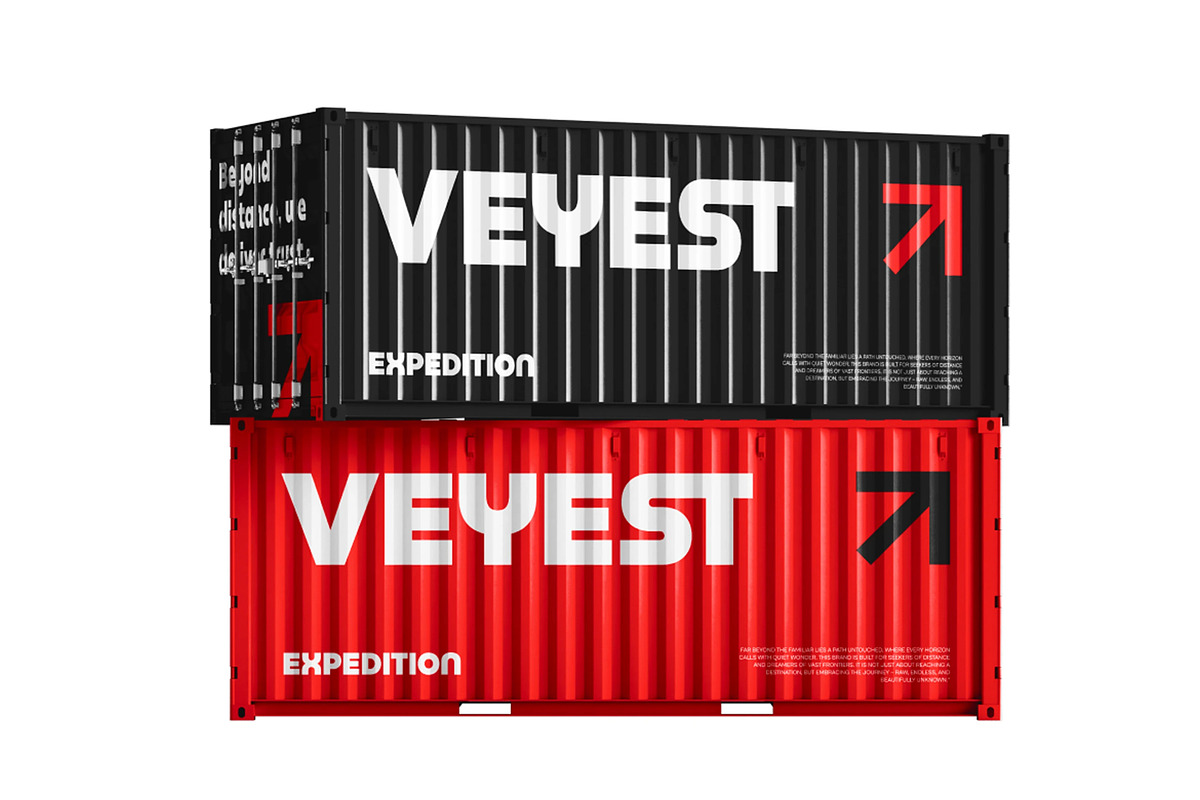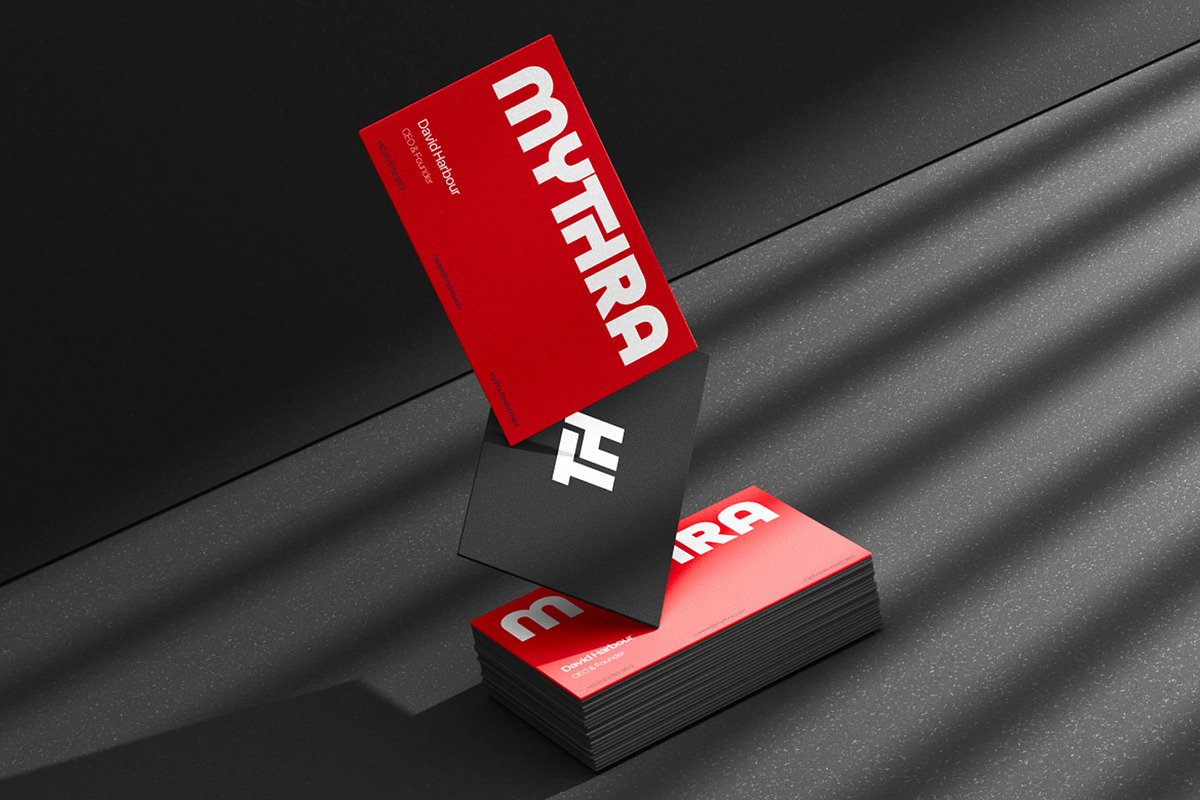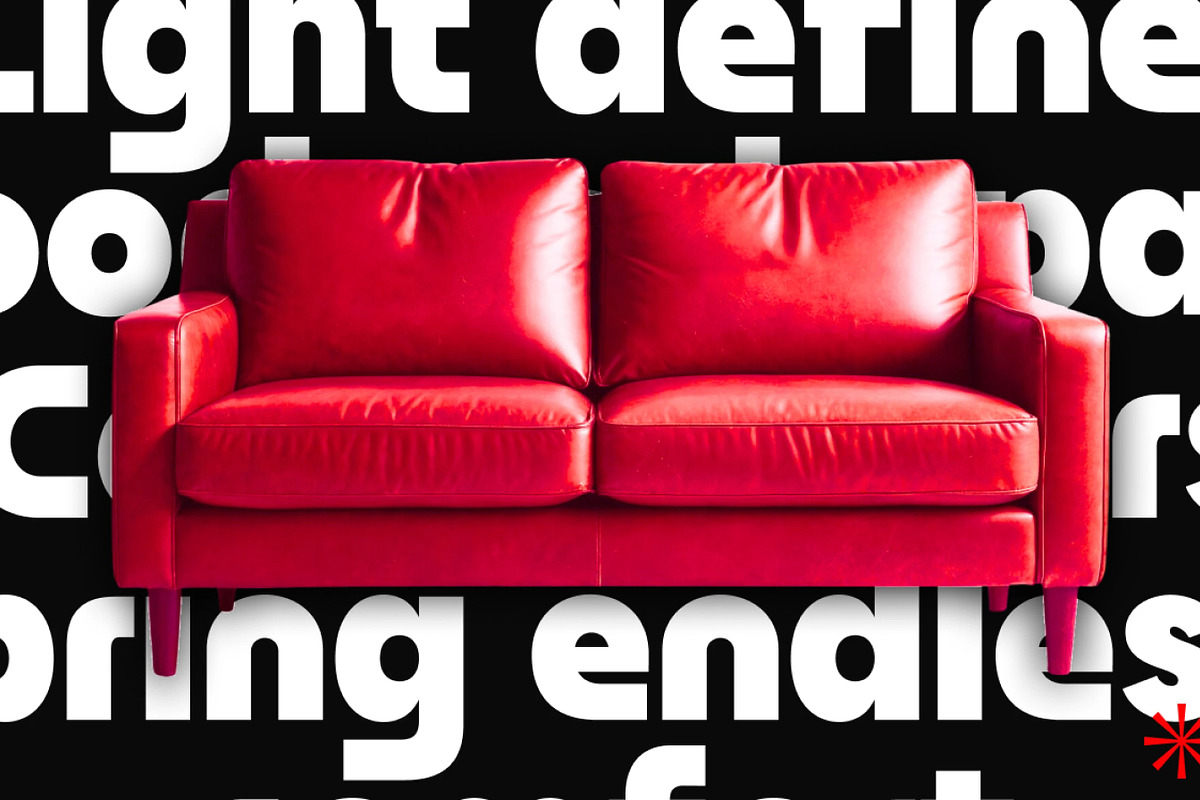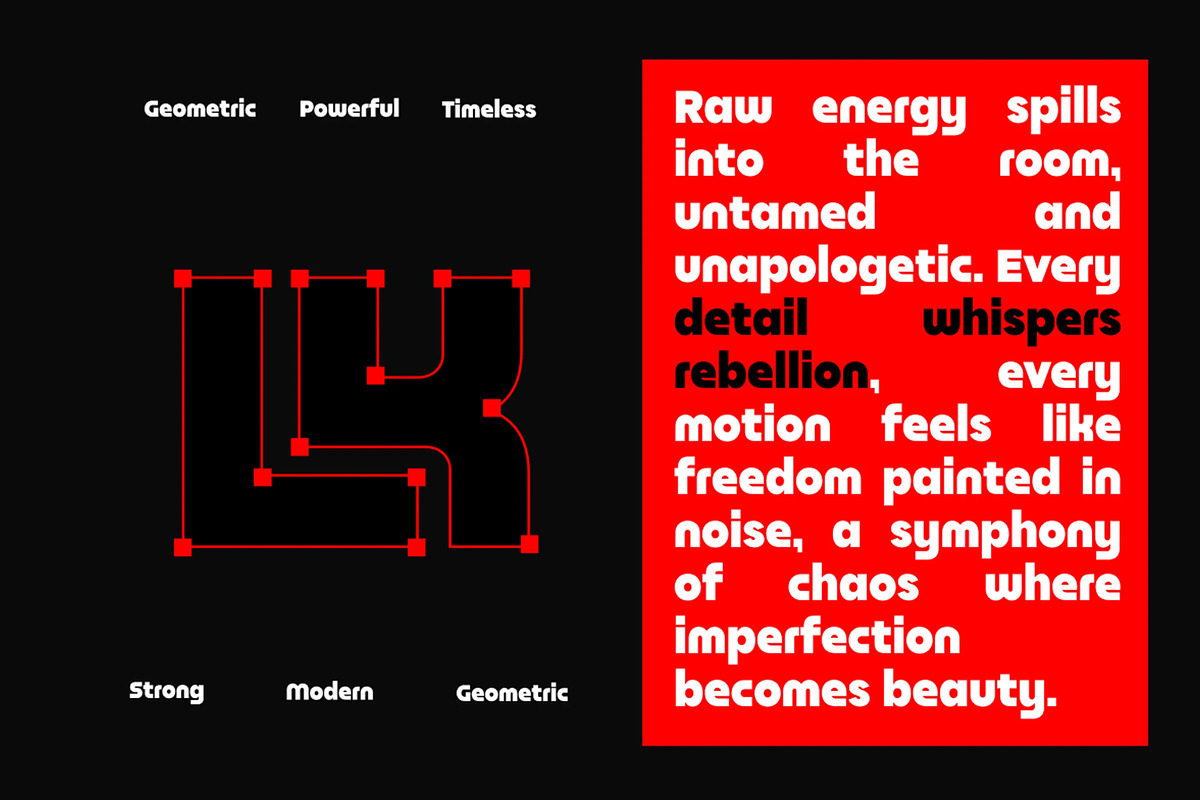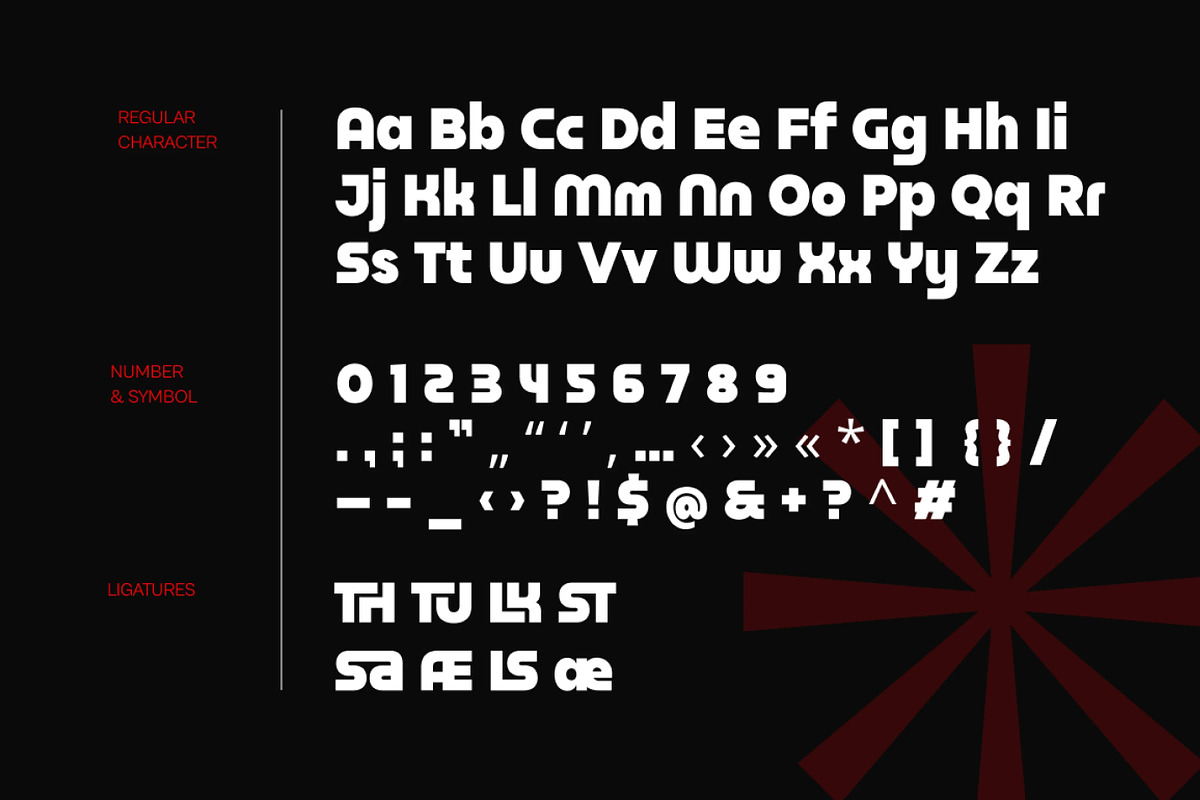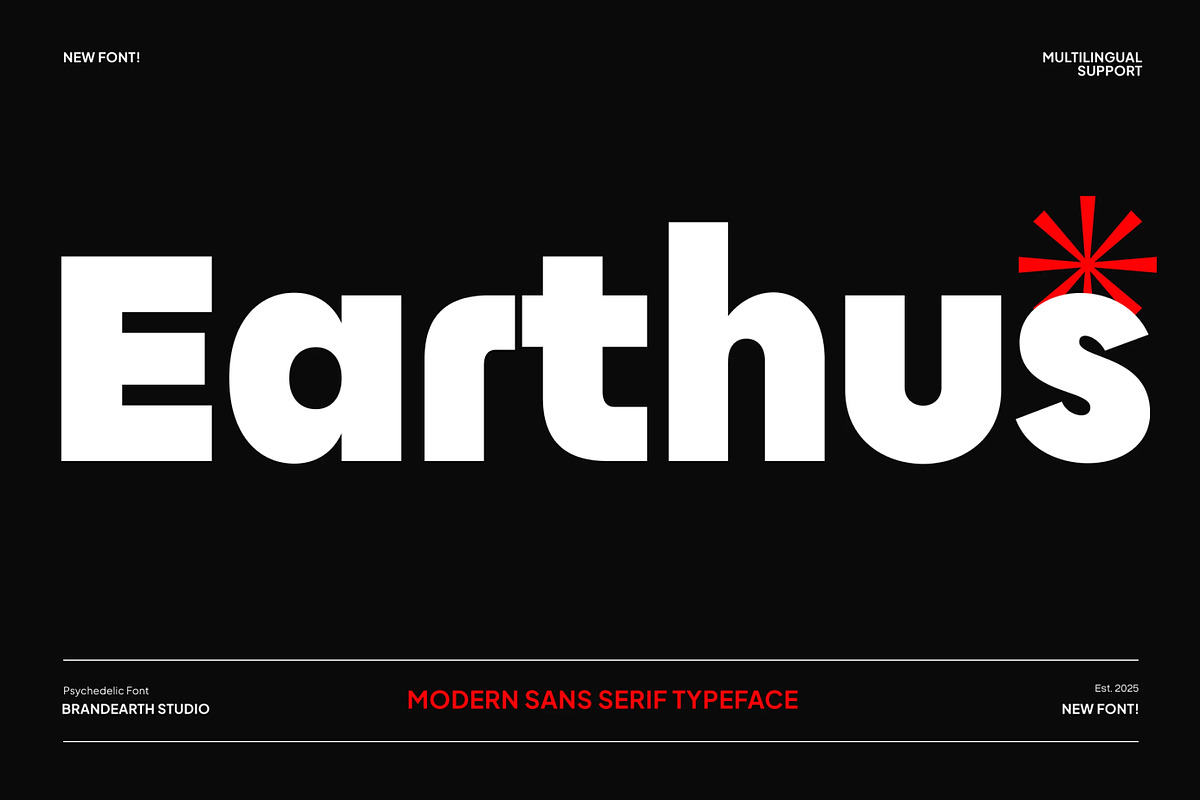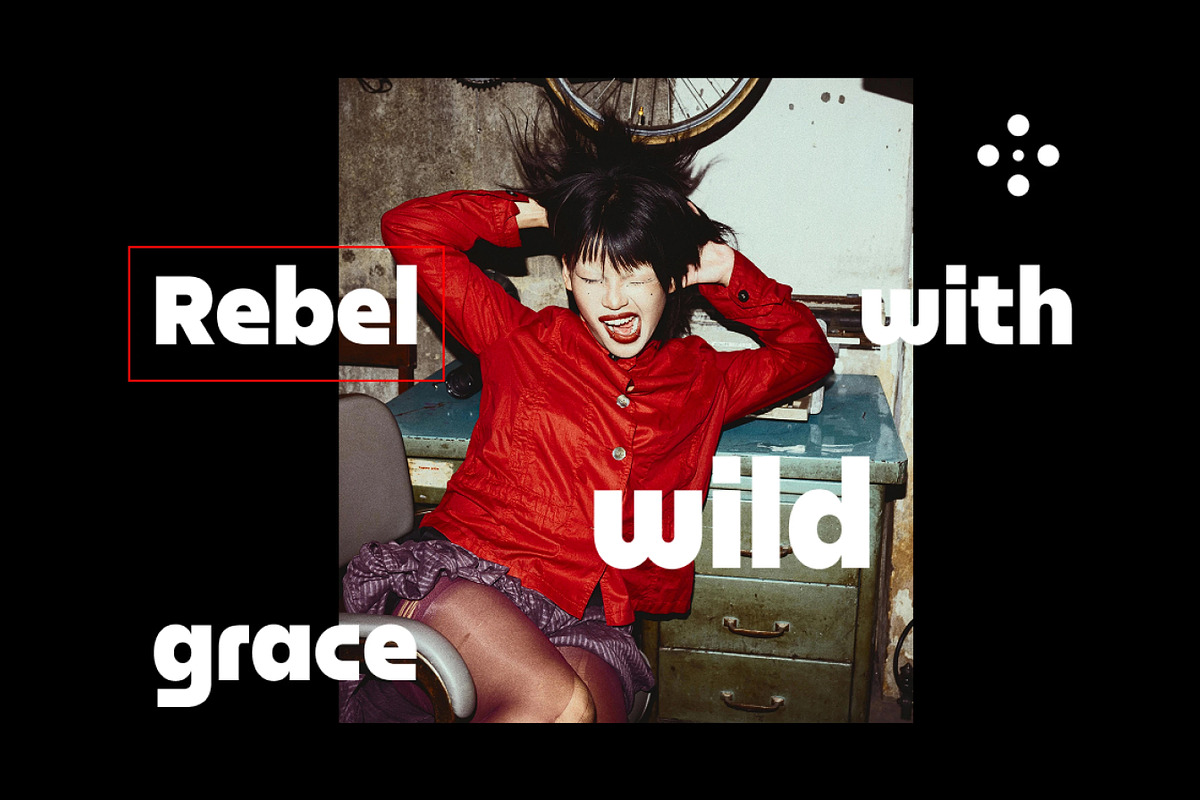
Earthus - Bold & Modern Sans Serif
Earthus is a bold and modern sans serif typeface built with geometric shapes and a timeless psychedelic influence. Its strong curves and sharp cuts make it perfect for impactful visual design, from branding to editorial layouts. With uppercase, lowercase, numbers, symbols, and ligatures, Earthus is highly versatile for both digital and print projects. Whether you're crafting logos, posters, packaging, or bold statement headlines, Earthus delivers a contemporary yet retro-inspired character that stands out effortlessly.
The letterforms in Earthus are built with strong geometric curves and sharp structural cuts, creating a balanced rhythm that gives the typeface its bold, contemporary character. It features a versatile display quality that's perfect for branding identity, editorial layouts, and bold statement headlines.
With its geometric precision and retro-inspired flair, Earthus bridges the gap between modern function and psychedelic character. It delivers a confident, distinctive feel while remaining highly legible, making it ideal for logo design, packaging, and creative merchandise.
Main Features
Numeral & Punctuations
Ligature